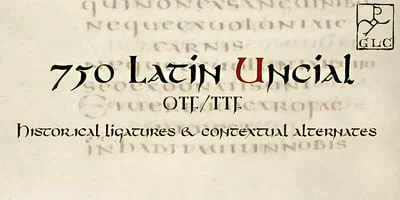
750 Latin Uncial Font
750 Latin Uncial Font is ideal for ancient design projects including medieval manuscript reproductions, monastery exhibitions, Celtic heritage centers, ancient Latin texts, historical calligraphy workshops, medieval studies programs, religious manuscript displays, and authentic period documentation campaigns. This sacred typeface works perfectly for theological seminaries, medieval history museums, monastery gift shops, Celtic cultural organizations, and projects that celebrate early Christian heritage and medieval scribal traditions.
What makes 750 Latin Uncial Font exciting is its sacred medieval character that perfectly captures the essence of 8th-century monastic scribes and early Christian manuscript tradition. The font features rounded letterforms with authentic uncial styling that reflects the spiritual devotion and meticulous craftsmanship of medieval monastery scriptoriums. Its sacred design elements embody the spirit of early Christian learning and monastic dedication, making it perfect for projects that need to convey spirituality, historical authenticity, and connection to medieval religious heritage. The carefully crafted uncial details create an atmosphere of monastic tranquility and sacred scholarship.
750 Latin Uncial Font comes in multiple family variations including sacred, monastic, medieval, and manuscript styles. Each weight maintains the distinctive uncial character while offering different levels of spiritual intensity and medieval presence. The font family includes Latin alternates, sacred ligatures, and manuscript variations that provide designers with comprehensive options for creating truly authentic and spiritually resonant typographic compositions that honor medieval traditions.
Whether you're designing religious branding, creating medieval marketing materials, or developing sacred promotional graphics, 750 Latin Uncial Font provides the perfect typographic foundation for projects that celebrate medieval excellence and monastic sophistication. This extraordinary typeface transforms ordinary text into compelling expressions of sacred wisdom and medieval elegance. Download this sacred font today and sanctify your design projects with the medieval authenticity and monastic refinement that captures the essential spirit of 8th-century Christianity and scribal devotion.